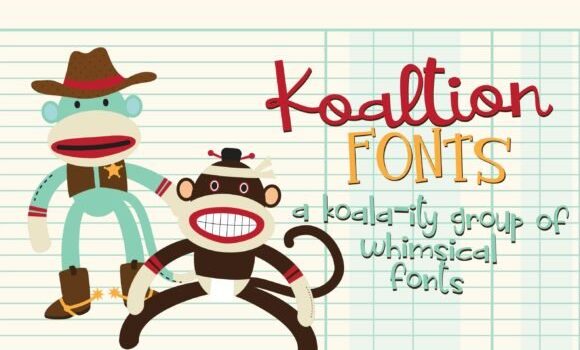
koalition
Koalition Family Font – Free Download Introduction to Koalition Family Font Koalition is a whimsical and dynamic script family featuring quirky fonts. 📸 Preview Gallery 6 images 📌 Product Name Koalition Family Font 👤 Author Illustration Ink 📂 Category Explore